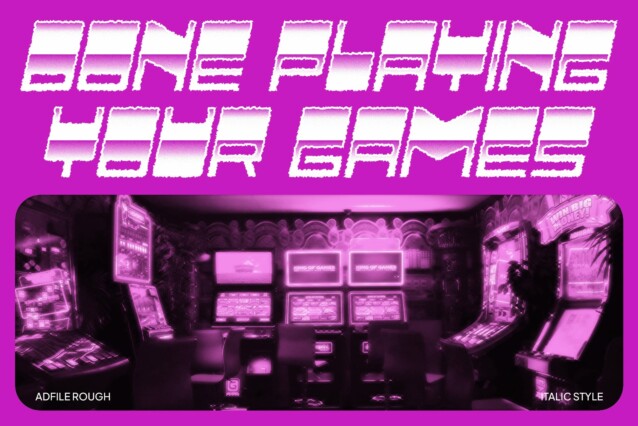
Adfile Rough Font
Adfile Rough Font is a display sans serif font that boasts a bold design exuding a funky and retro vibe. The font’s strong and distinctive letterforms bring a playful and nostalgic touch to any project, making it an excellent choice for designs that need to stand out and capture attention.
Enhanced with Rough Texture
The rough texture of Adfile Rough adds a unique charm, enhancing its retro appeal and giving it a distinctive character. This textured effect not only adds depth and visual interest but also evokes a sense of authenticity and vintage style, perfect for designs that aim to convey a sense of history and personality.